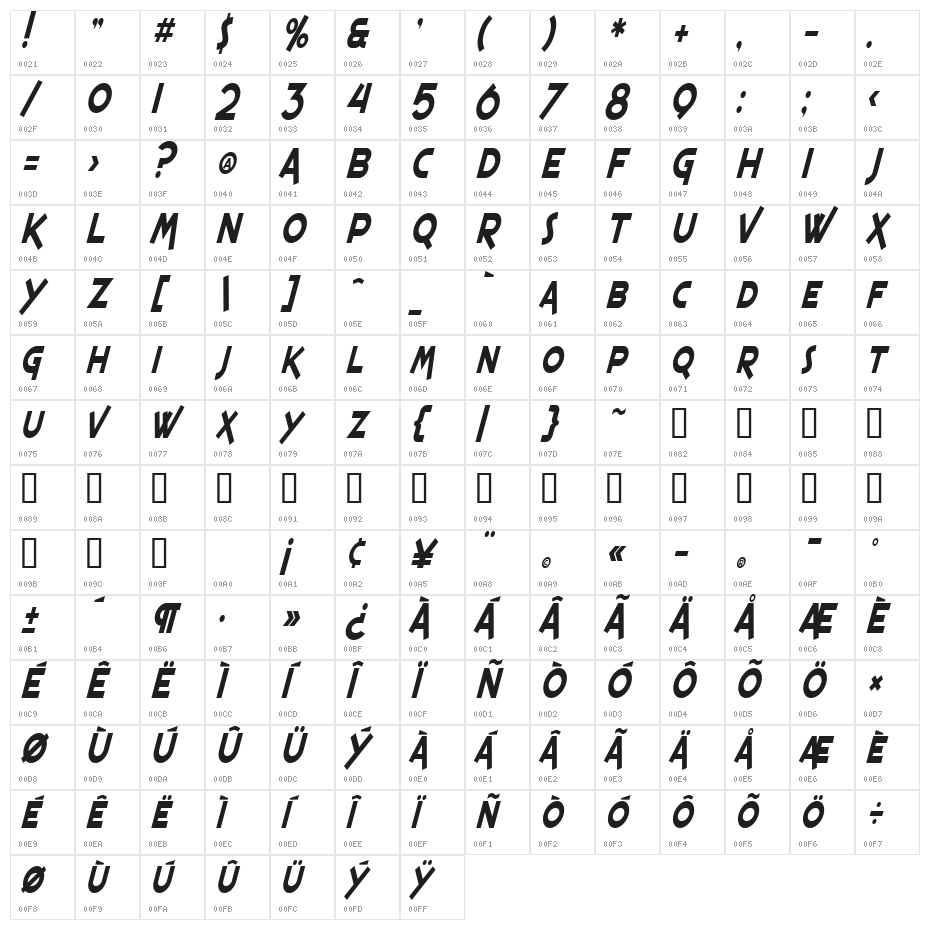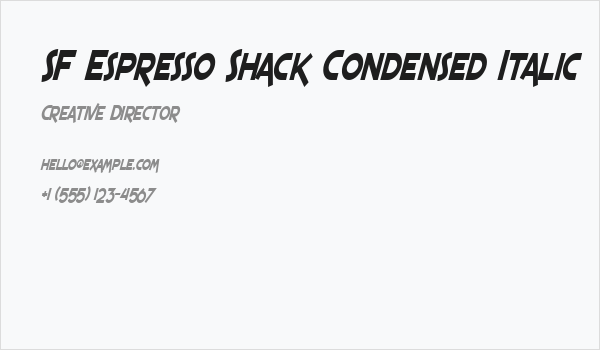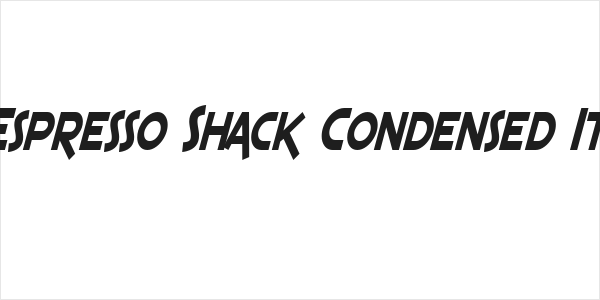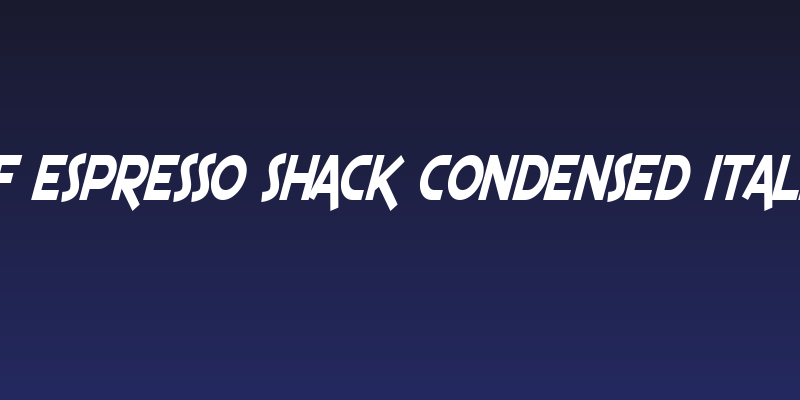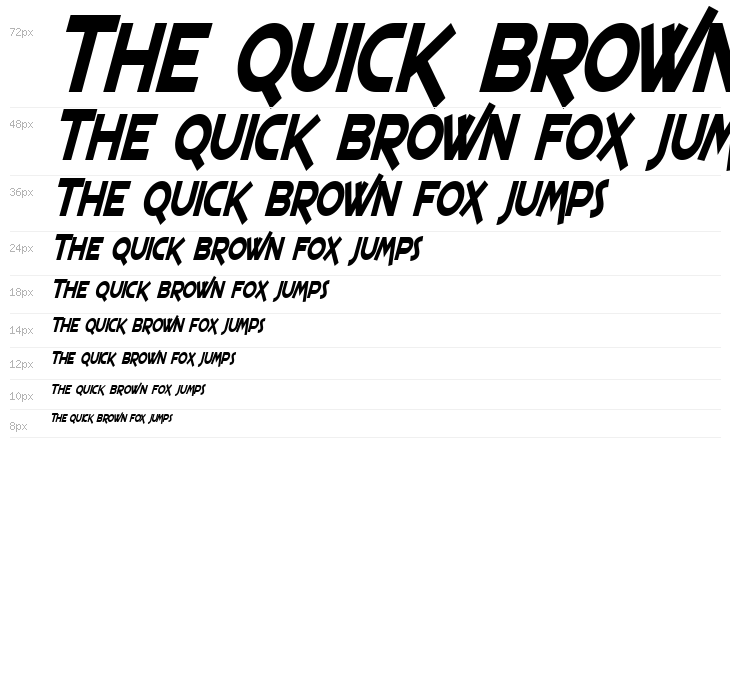
SF Espresso Shack Condensed Italic Font
SF Espresso Shack Condensed Italic Description
This font features a dynamic and energetic style with a condensed and italicized form. The characters are sharply angled, giving a sense of motion and speed. The strokes are bold and consistent, creating a strong visual impact. The uppercase and lowercase letters maintain a uniform slant, enhancing the italic effect. The numerals and special characters follow the same stylistic cues, ensuring cohesion across all glyphs. This font's condensed nature allows for efficient use of space, making it ideal for headlines or titles where impact is essential.
| Proposed Projects | Ideal for sports branding, dynamic posters, modern advertisements, and impactful headlines. |